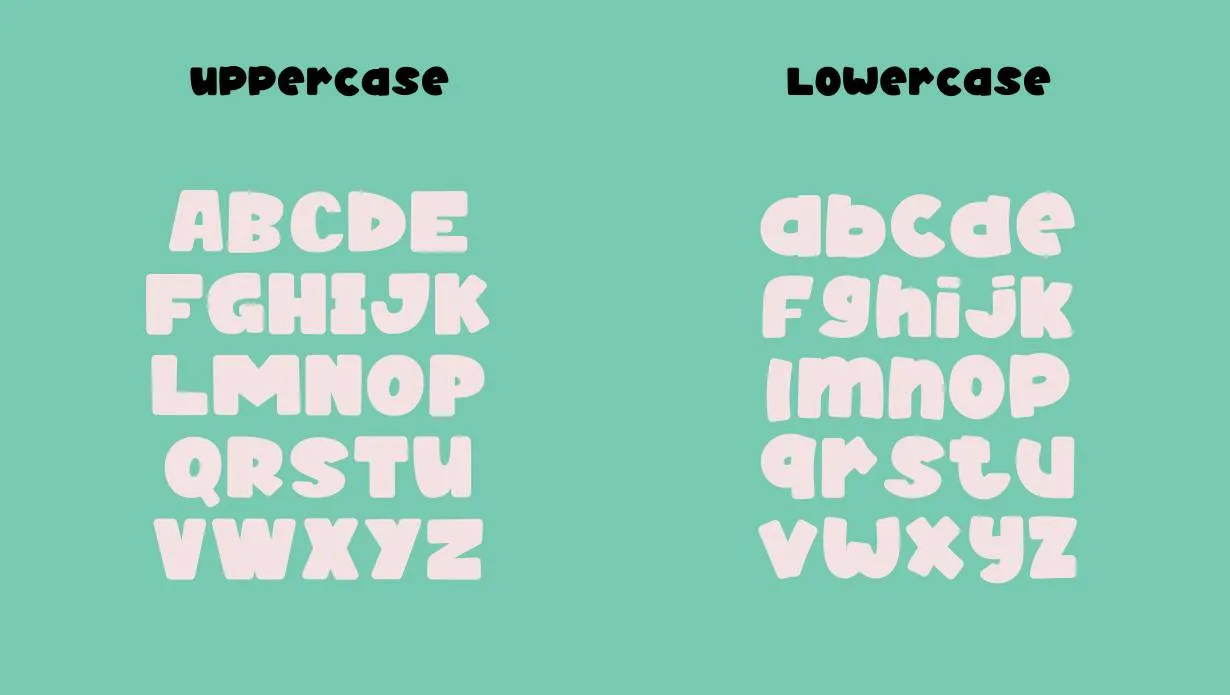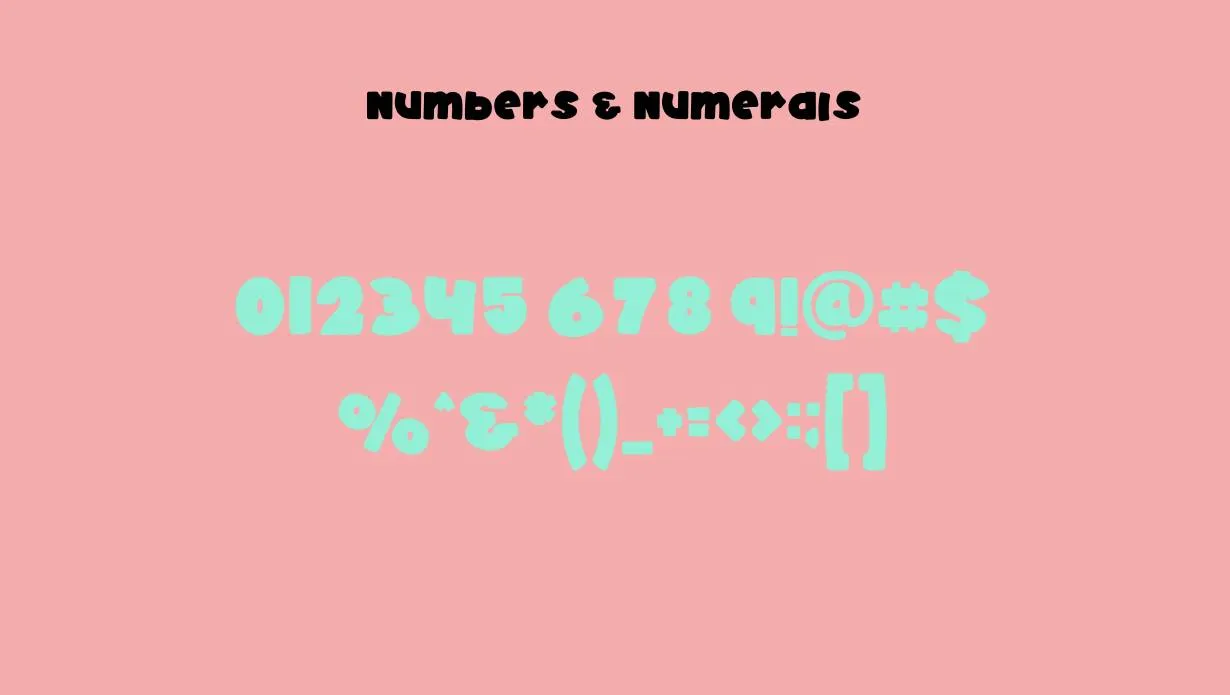
There is an amazing typeface for you named Happy Donuts Font that you can utilize in several fields. This typeface is designed by Hard work and love of Letterena Studios Foundry. The parent category of this well-known typeface is fancy.
You can utilize this amazing fancy font for attractive headlines, titles, and subheadings. This typeface never fails to astound the viewer if it is paired with dm sans font.
View of Happy Donuts Font
Happy Donuts Font Info